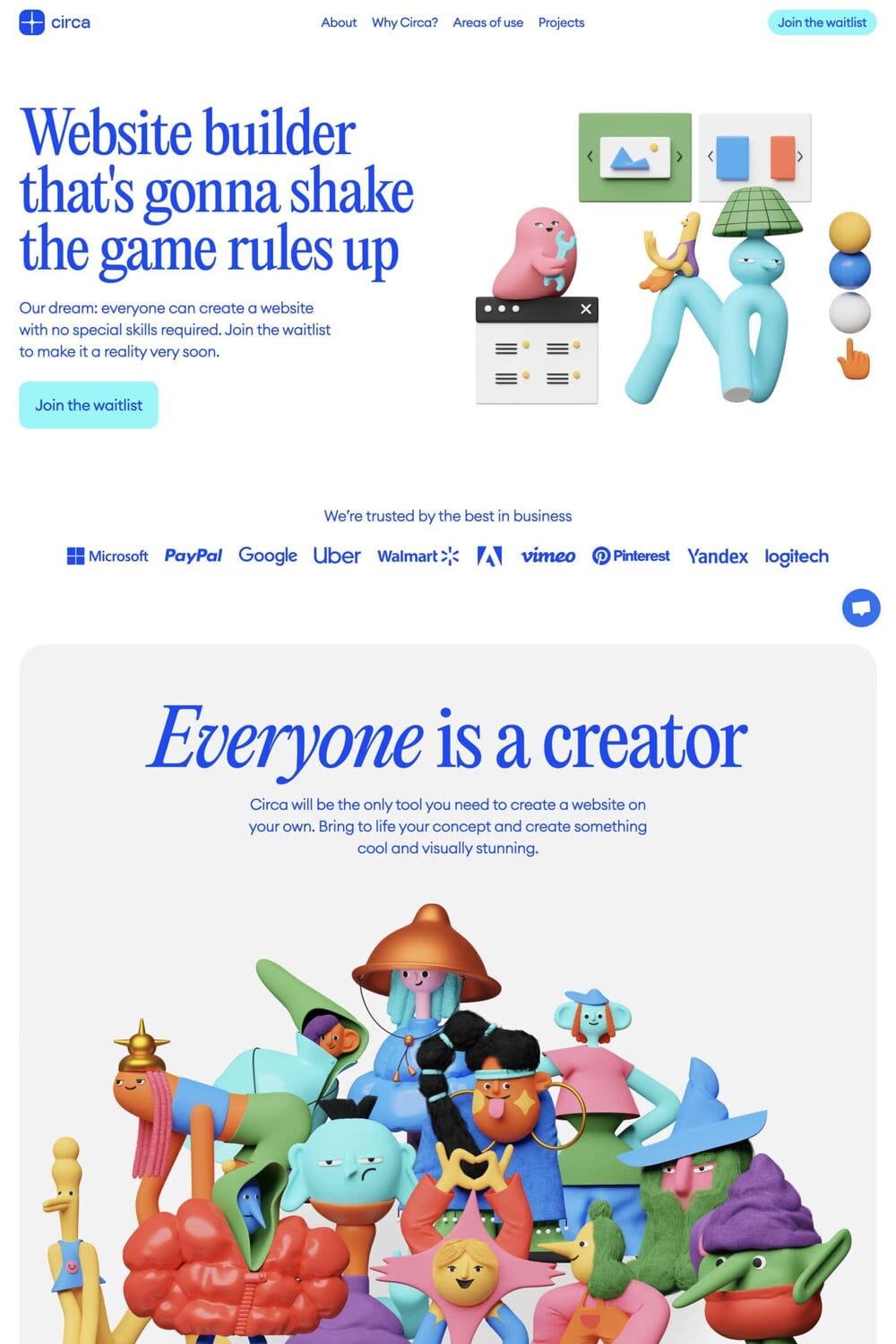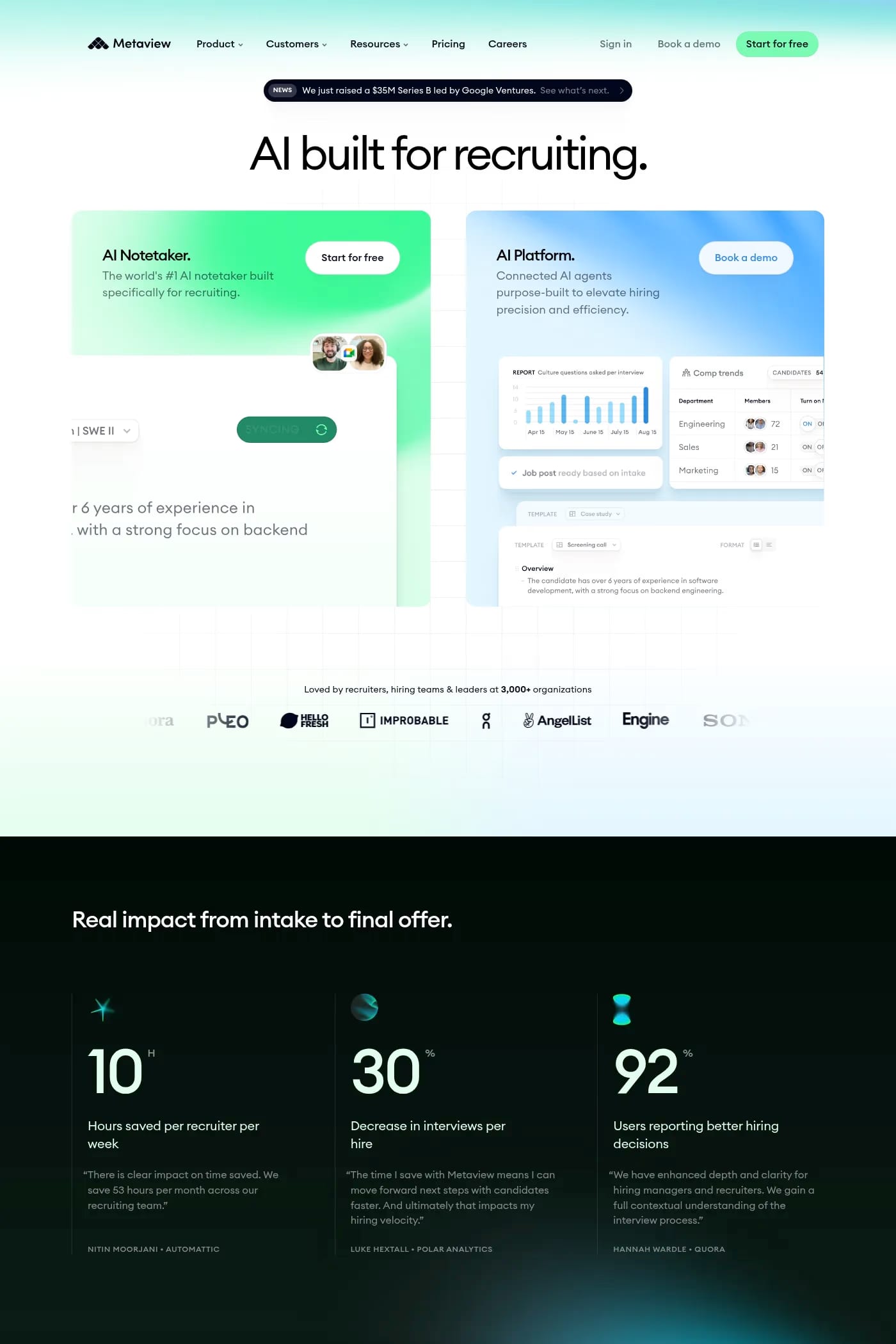
Euclid is a sans-serif typeface from Swiss Typefaces.
Euclid is a tool for branding agencies and design studios. It’s definitely the best geometric typeface ever.
A1 features 3 websites using Euclid, including Glass abstract shapes, Metaview, and Circa. They lean towards Animated, 3D, and Blur design styles, and they’re most often built with Webflow and Next.js.